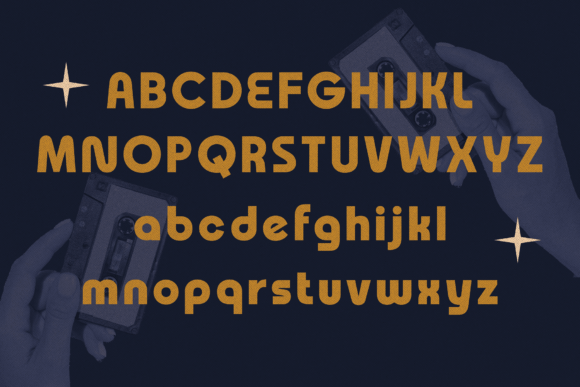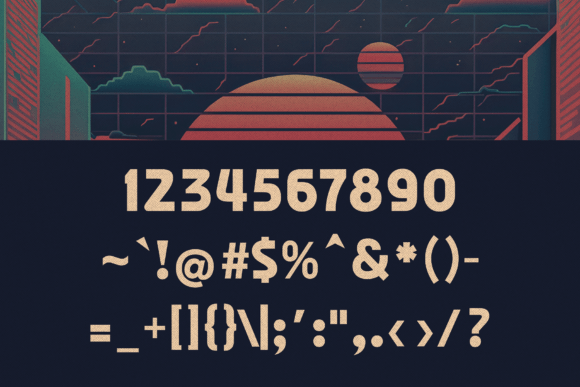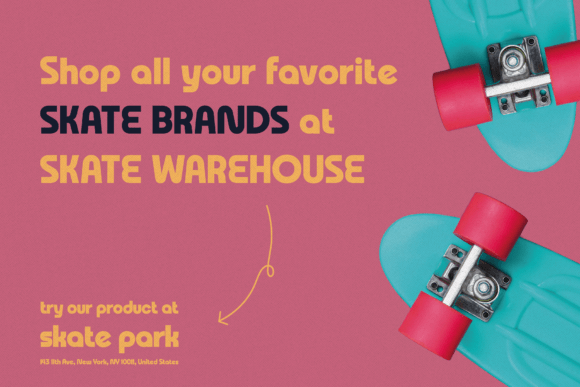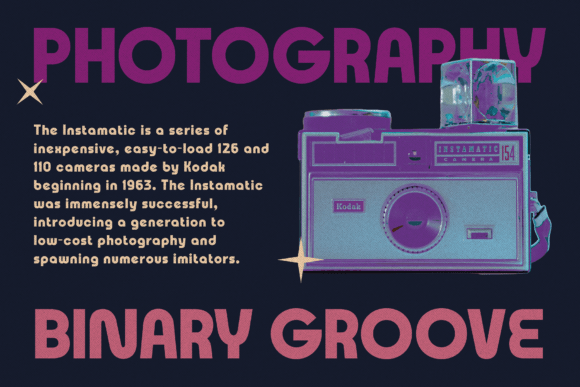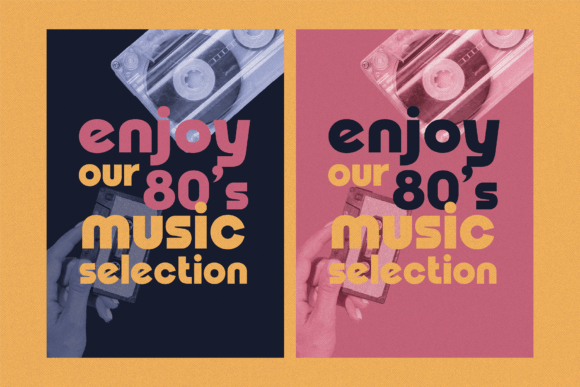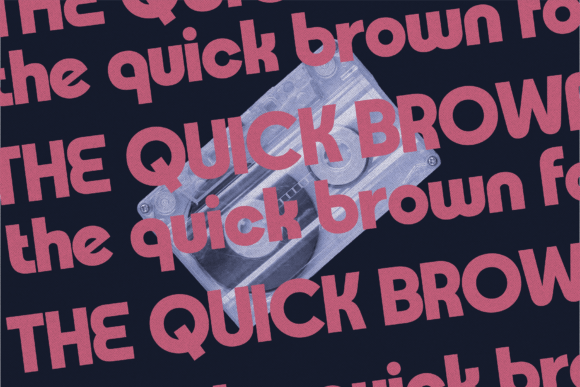
The Font that Brings Back the Future
Do you remember the feeling of excitement and wonder when you first laid eyes on a futuristic movie or video game from the 1980s? The sleek lines, the bold colors, and the sense of possibility that seemed to stretch on forever? For designers, capturing that essence of retro-futurism can be a challenge, but with the right tools, it’s easier than ever.
Enter the Binary Groove Font, a bold and dynamic font that embodies the spirit of a bygone era. With its geometric shapes and sharp edges, this font is perfect for designers who want to add a touch of technology and progress to their projects. Whether you’re working on a headline, poster, or packaging design, the Binary Groove Font is a must-have for anyone looking to bring a touch of retro-futurism to their work.
Key Features of Binary Groove Font
- Font Family: Binary Groove Font is a sans-serif font family designed for digital use.
- Unique Characteristics: Features a unique blend of geometric and organic shapes, making it suitable for both modern and futuristic designs.
Review of Binary Groove Font
Overall, I’m impressed with the Binary Groove Font. It has a unique aesthetic that sets it apart from other digital fonts. Here are some of its strengths:
- ✨ The font’s geometric design gives it a clean and modern feel, making it perfect for tech-related projects.
- ✨ The font is highly customizable, allowing users to adjust the size, weight, and color to suit their needs.
- ✨ The font includes a wide range of characters, including accented letters and special symbols.
- ⚠️ The font may not be suitable for projects that require a more traditional or serif font style.
- ⚠️ The font’s high level of customization can make it difficult to achieve consistency across different elements of a design.
- ⚠️ Some users may find the font’s geometric design to be too futuristic or avant-garde for their taste.
In terms of overall impression, I think the Binary Groove Font is a solid choice for designers who want a modern and customizable font. While it may not be suitable for every project, it’s a great option for those who want to create a unique and eye-catching design.
Use the Binary Groove Font to create futuristic and high-tech designs. Experiment with different font sizes and colors to create a visually appealing effect.
Combine the Binary Groove Font with other fonts to create a unique and modern design. Use it for headings and titles to draw attention to important information.
Use the Binary Groove Font for:
Technology and gaming designs
Science fiction and futuristic concepts
Modern and minimalist designs
Headings and titles in business and marketing materials
Alternatives to Binary Groove Font
1. Roboto Font
Roboto is a clean and modern sans-serif font designed by Christian Robertson. It is suitable for digital products and interfaces where clear readability is essential. Roboto is a more versatile font compared to Binary Groove Font, with a wider range of weights and styles available.
Comparison: Roboto is more versatile and has a more extensive range of weights and styles, making it suitable for a broader range of applications. Binary Groove Font, on the other hand, is more minimalist and suited for simple, high-contrast designs.
Montserrat is a sans-serif font designed by Julieta Ulanovsky. It is inspired by the urban typography of Buenos Aires and is suitable for use in digital products, signage, and other applications where a strong, urban feel is desired. Montserrat is more geometric and structured compared to Binary Groove Font.
Comparison: Montserrat is more geometric and structured, making it suitable for use in applications where a strong, urban feel is desired. Binary Groove Font, on the other hand, is more minimalist and suited for simple, high-contrast designs.